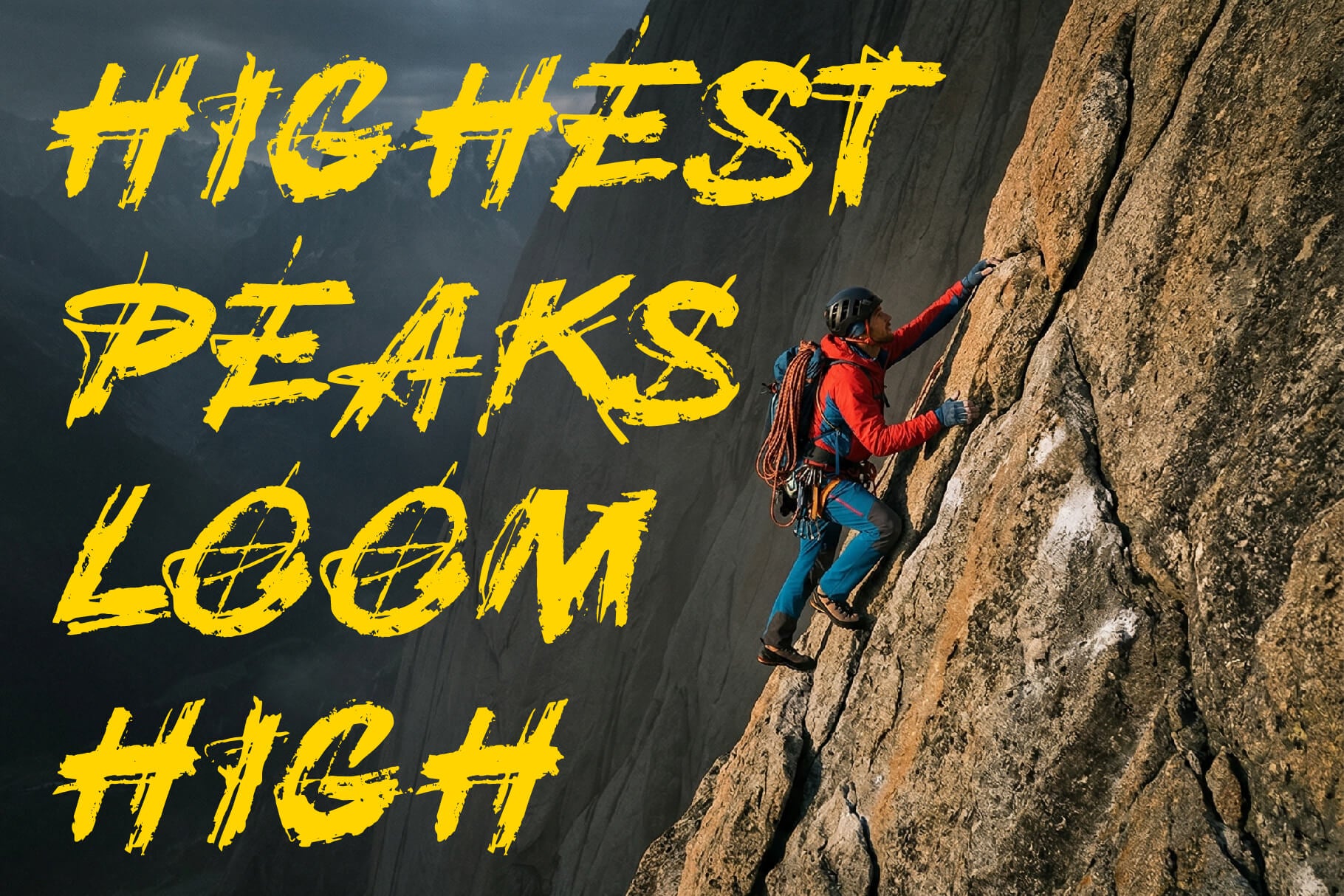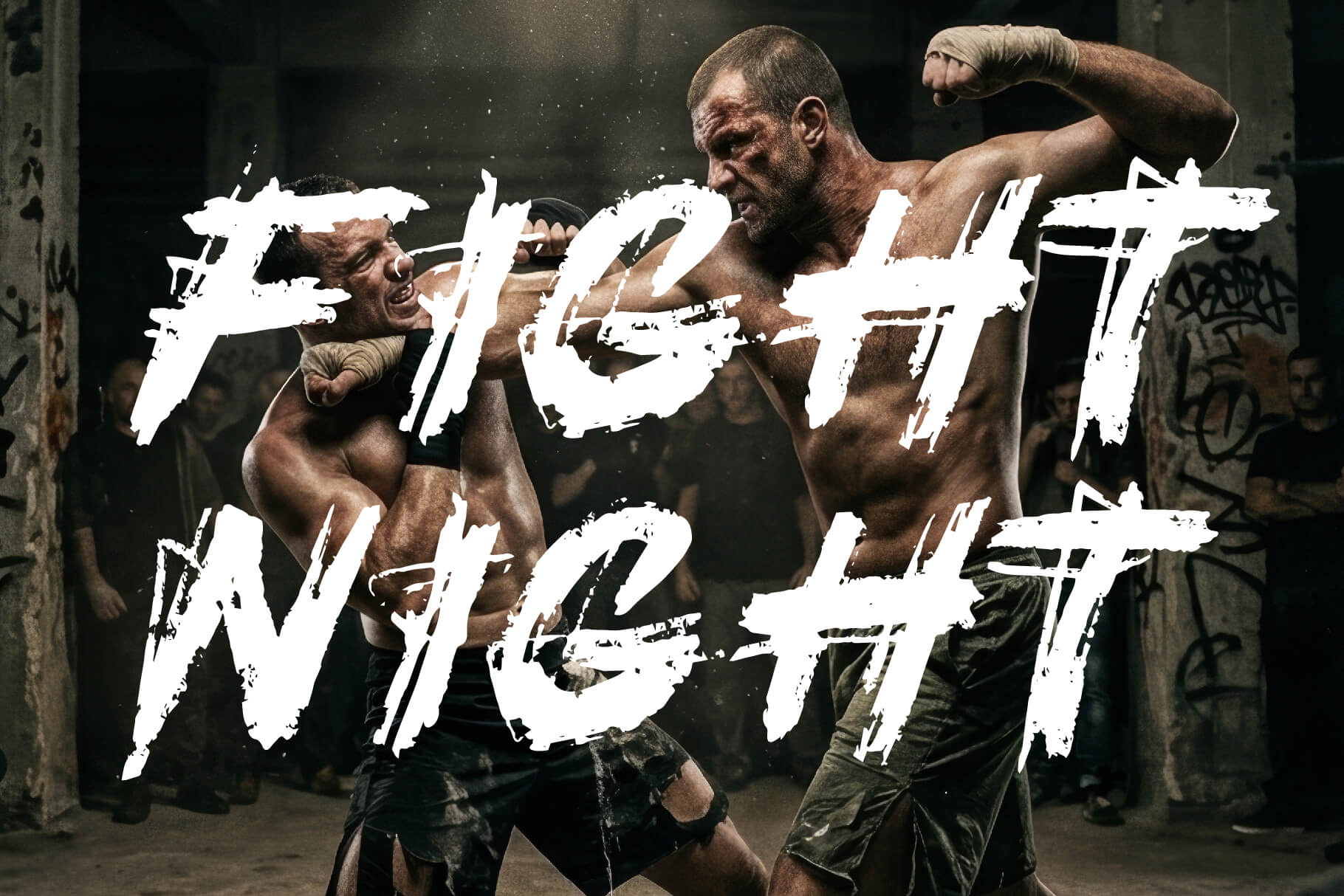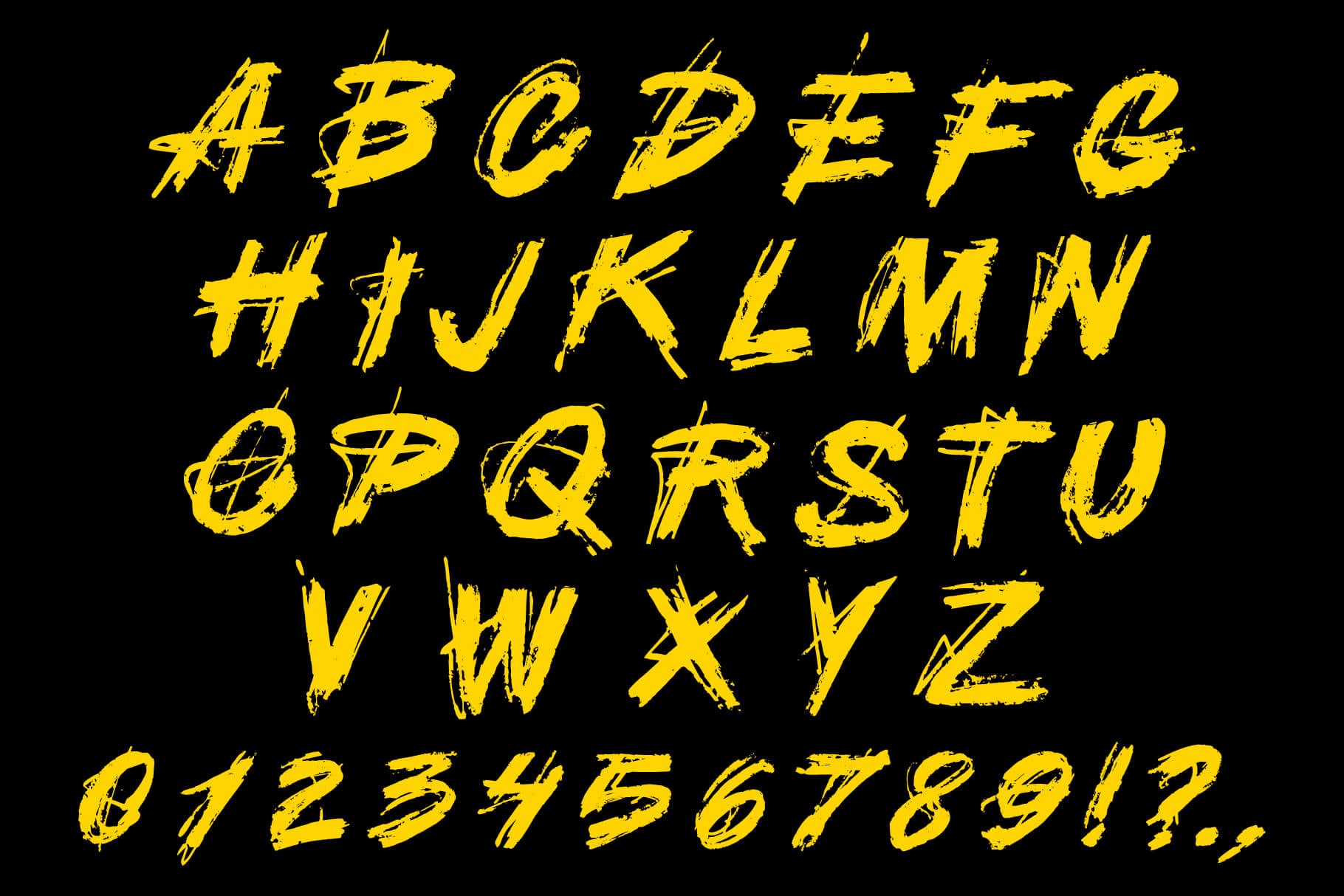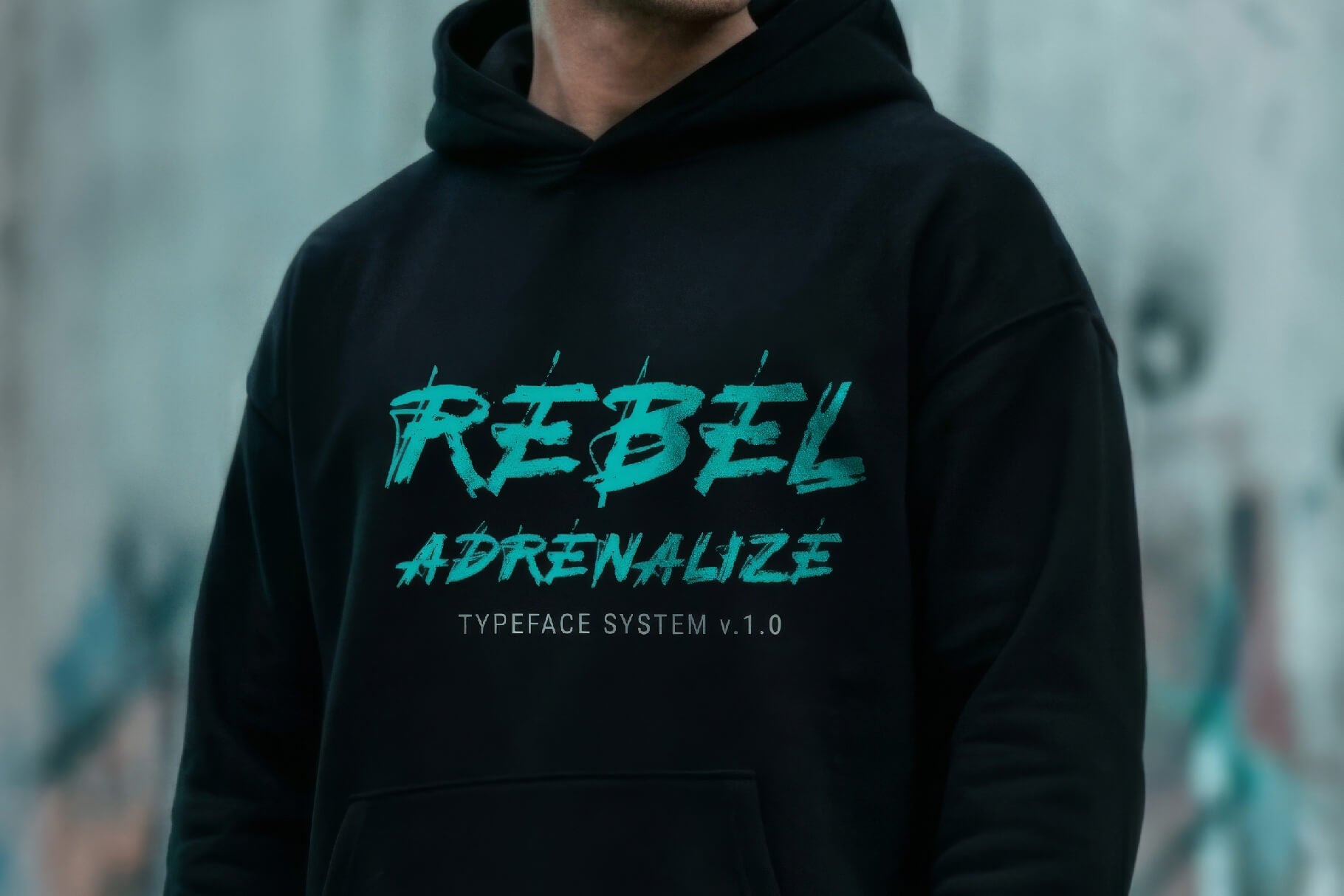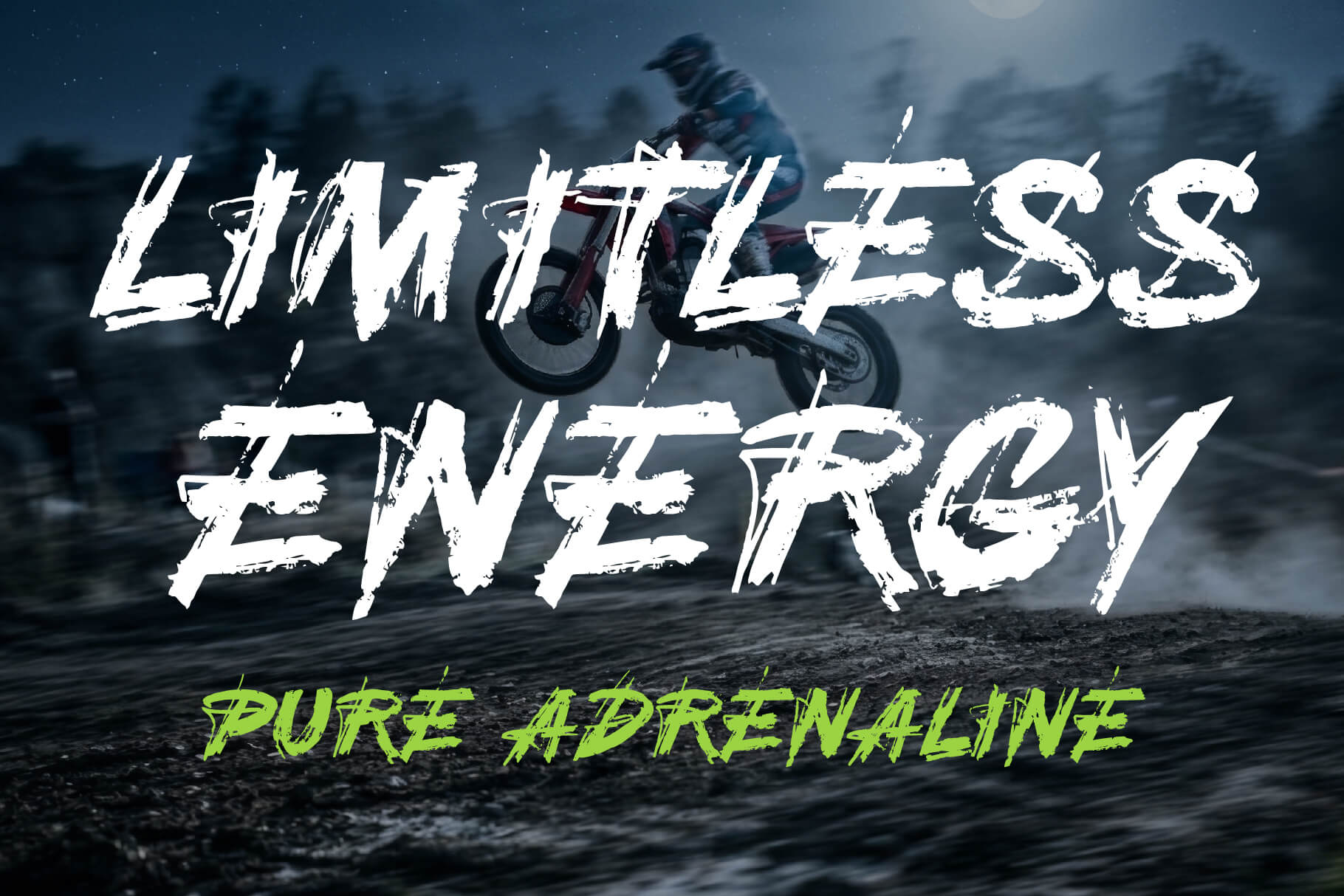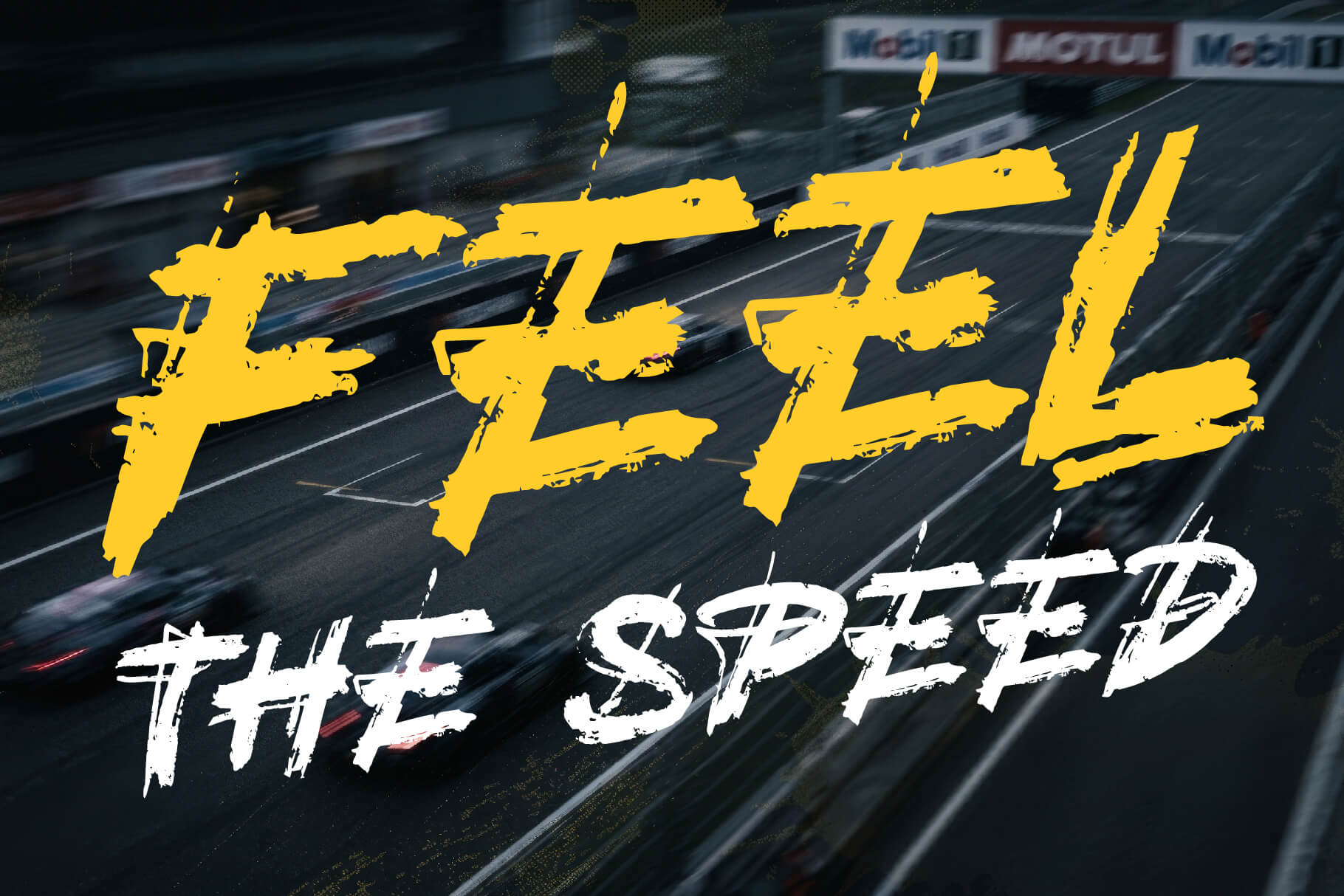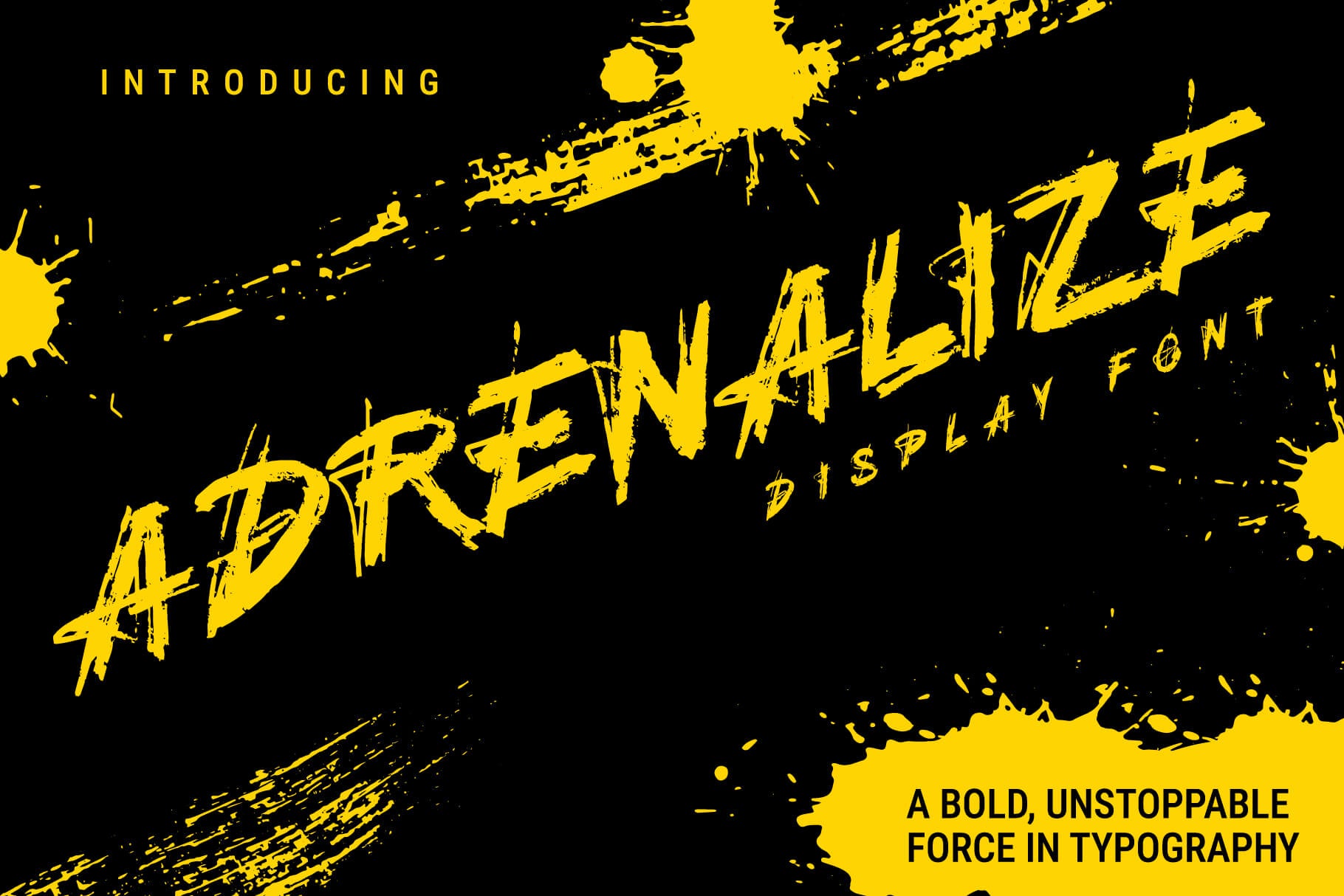
ADRENALIZE display font
ADRENALIZE is a bold, high-energy display typeface built to move fast and hit hard.
Its dynamic, forward-leaning letterforms bring a sporty, adrenaline-fuelled feel to any layout while staying strong and legible at large sizes.
The face gives brands an instant sense of speed, power and motion.
ADRENALIZE works especially well for sports and racing branding, streetwear, posters and bold headlines.
IDEAL FOR
– Sports and racing branding
– Streetwear and apparel
– Posters and covers
– Logos and headlines
– Social media visuals